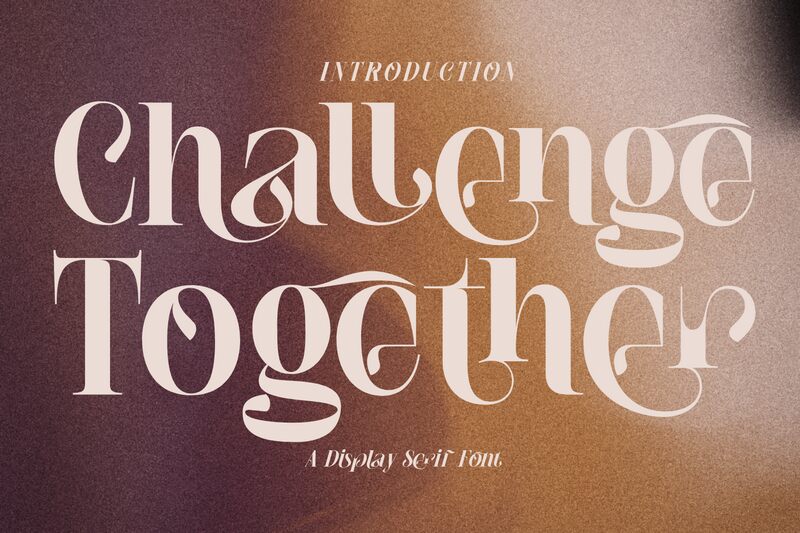
Challenge Together font family designed by 177Studio is a free font family including 2 font styles. Designed as a versatile medium to serve the needs of its users in both their personal and professional lives, it features robust characters that reflect strength and starry sophisticated uppercase and lowercase characters, combining them to present combination options that won’t go unrecognized.
Enjoy all that Challenge Together font family has to offer, including its variety of unique stylish options that look just as exceptional on their own as they do when mixed with each other. Display letters used for youthful movie titles, posters, and flyers that every movie lover will hang up on their walls or keep as covers for their social media platforms.
Businesses related to theme parks can keep the fun going with ID cards and invitations, while customers enjoy the menus, tickets, and vouchers. And you can also move on to darker tones with artist’s album cover art, band merch, and many others.